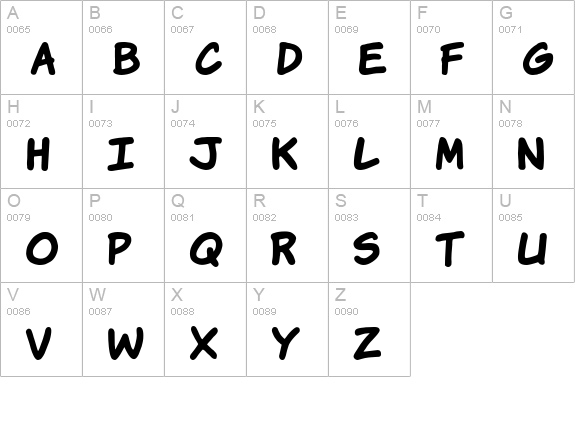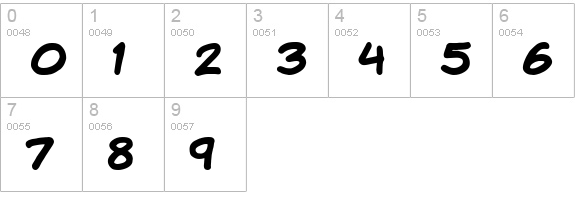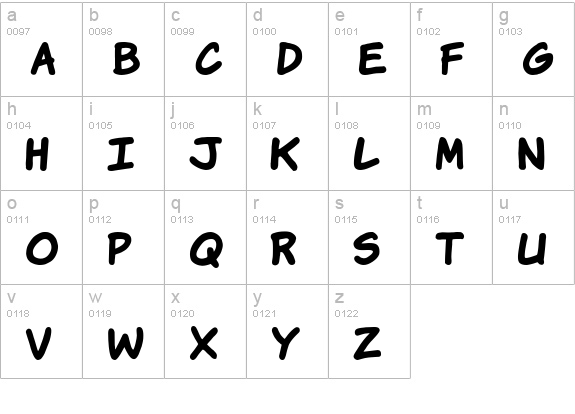
VTCKomixationHandBold Font Details
VTCKomixationHandBold is a one-of-a-kind typeface that brings a playful and vibrant energy to any design project. This font is perfect for creating eye-catching headlines, attention-grabbing logos, or adding a touch of fun to your social media posts. With its bold and dynamic letterforms, VTCKomixationHandBold captures the essence of hand-drawn comic book style, making it an excellent choice for comic book enthusiasts, illustrators, and graphic designers alike. What sets VTCKomixationHandBold apart is that it is freely available to download at FontsMarket.com. This means that you can add this exciting and unique font to your collection without breaking the bank. Whether you're a professional designer or a hobbyist, having access to high-quality fonts that are free to use is a game-changer. VTCKomixationHandBold offers a wide range of characters, including uppercase and lowercase letters, numbers, and punctuation marks. Its versatility allows you to create visually appealing designs that stand out from the crowd. The hand-drawn nature of this font adds a touch of personality and authenticity to your projects, giving them a distinct and memorable look. Whether you're designing a comic book cover, a poster for a fun event, or simply want to add a playful touch to your website, VTCKomixationHandBold is the perfect choice. Its bold and energetic style will instantly grab attention and make your message pop. Don't miss out on the opportunity to enhance your designs with this amazing font. Download VTCKomixationHandBold for free at FontsMarket.com and let your creativity flow.